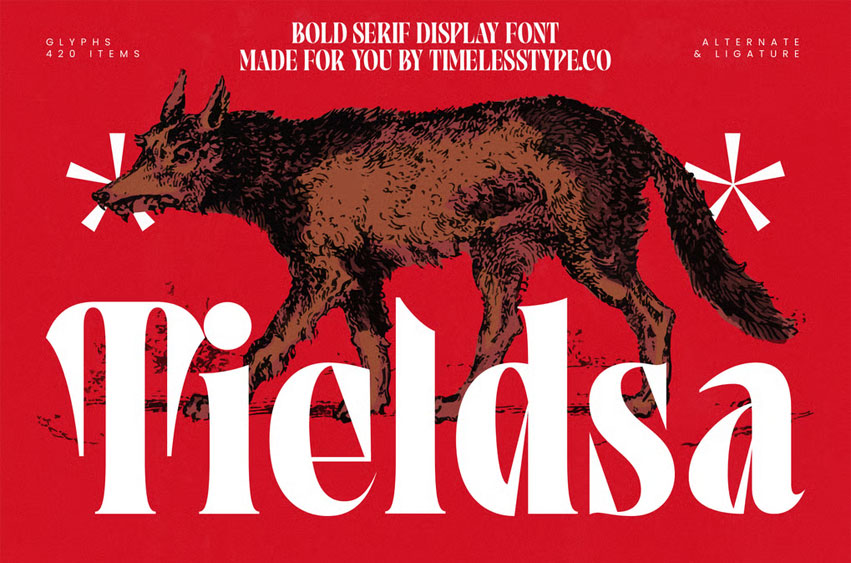
Tieldsa Font is a bold serif display font with strong character and refined detailing, crafted to bring power and sophistication to any design. Its dramatic strokes, elegant alternates, and sharp ligatures make it ideal for branding, posters, packaging, logos, and editorial titles.
With a timeless yet modern appeal, Tieldsa stands out as a typeface that combines boldness with elegance for both digital and print projects.